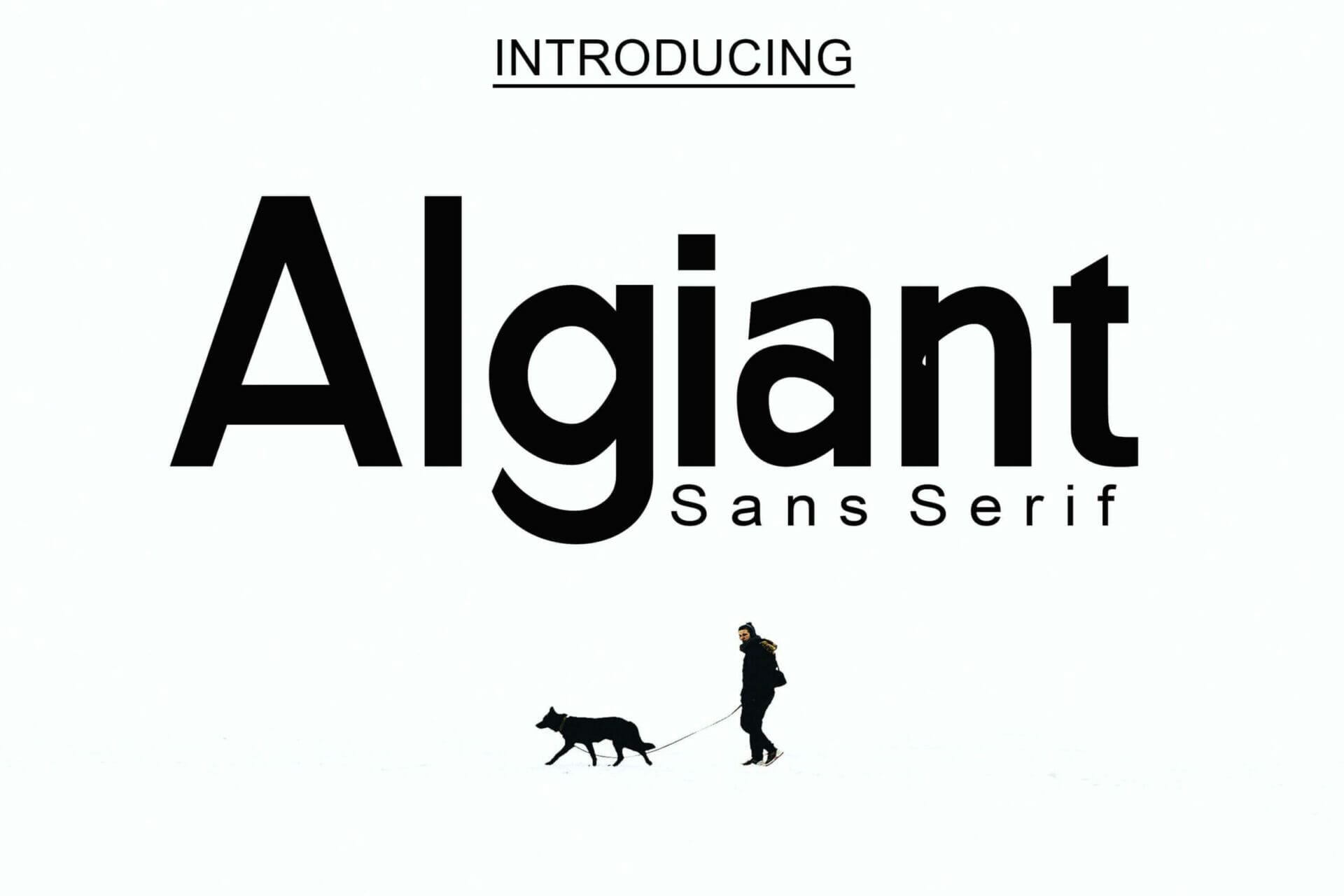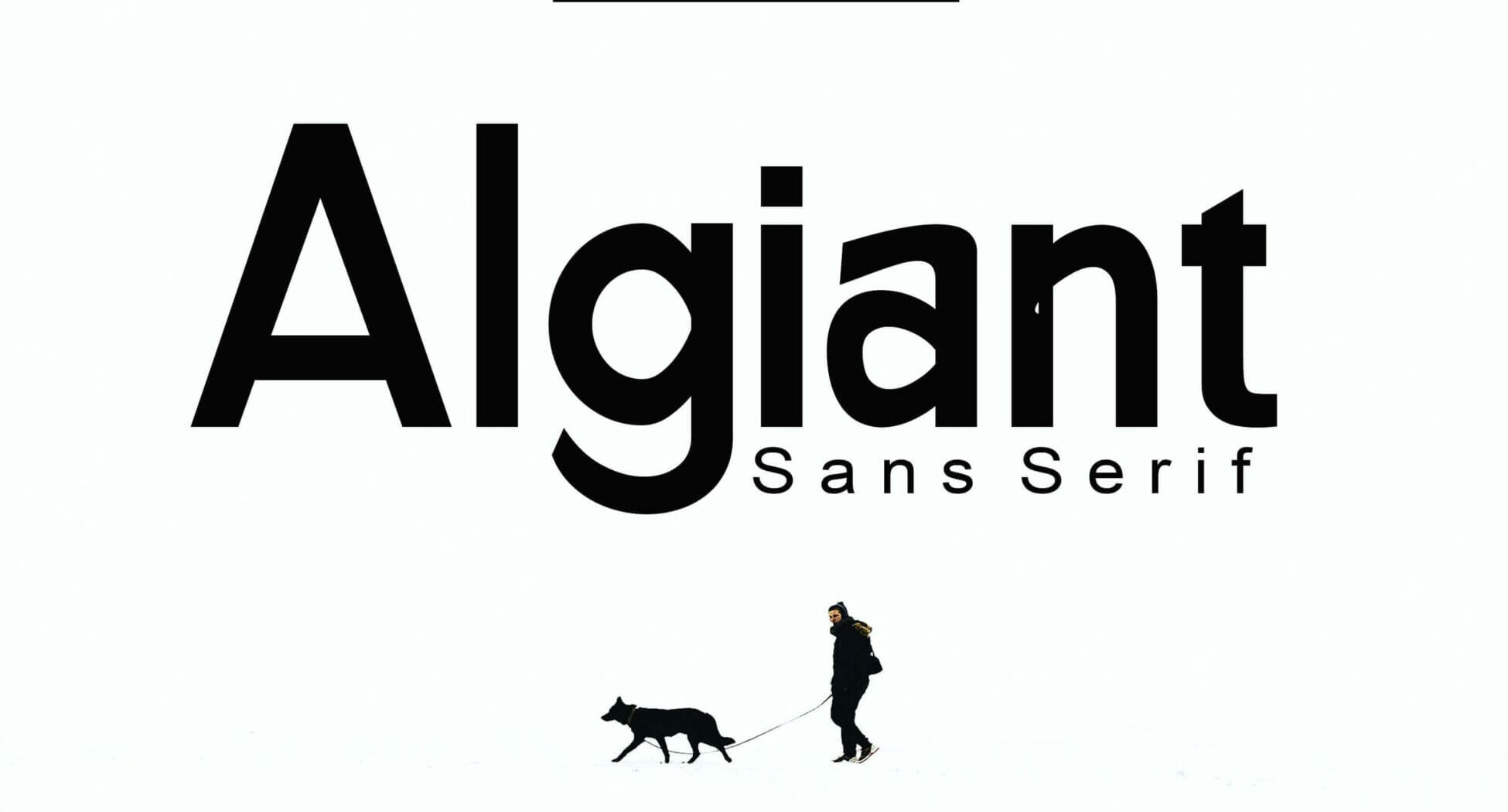
Introducing Algiant Sans Serif Font, your ultimate typographic companion that is sure to leave a lasting impression! This bold and assertive sans serif font created by Canden Meutuah is here to revolutionize your design projects with its sleek, readable, and commanding presence. With a lifetime license for both personal and commercial use, this font is your go-to tool for all your creative endeavors.
Designers and business owners alike will find Algiant an invaluable asset to their font library due to its readability and versatility. The font’s commanding presence and unique style have the potential to elevate any creation, whether it’s a striking logo, an eye-catching poster, or a visually stunning website. This font is your secret weapon to grab attention and make a statement.